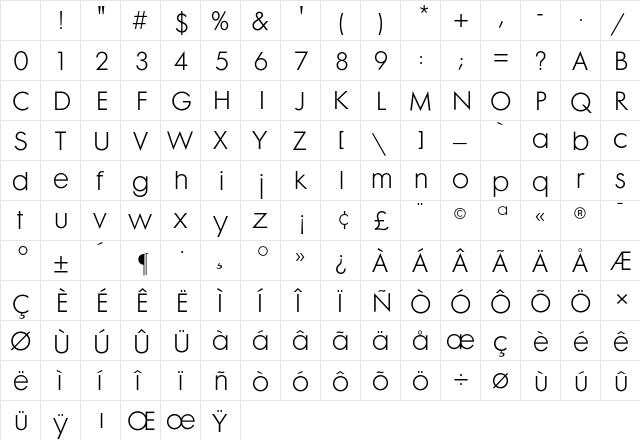
Complete Futura Maxi CG Light Regular glyph index. Displaying only characters natively supported by Futura Maxi CG Light Regular font.
Futura Maxi CG Light has a distinctly futuristic character, with geometric precision and clean angles that feel at home in technology, gaming, and sci-fi contexts. Its slender proportions lend an understated elegance to any composition.
Pro Tip: Try Futura Maxi CG Light with generous letter-spacing in UI labels and navigation - the geometric forms benefit from room to breathe.